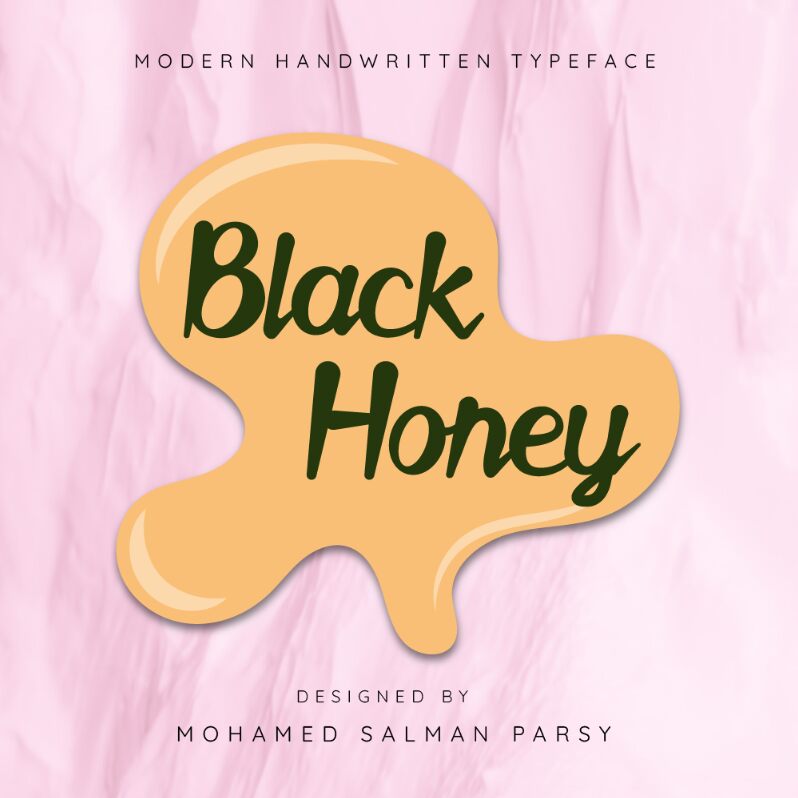
Introducing Black Honey Script, a modern handwritten font by Mohamed Salman Parsy. Its bold, elegant style is perfect for creating eye-catching logos and titles, adding a unique touch to invitations and cards, or making any project stand out.